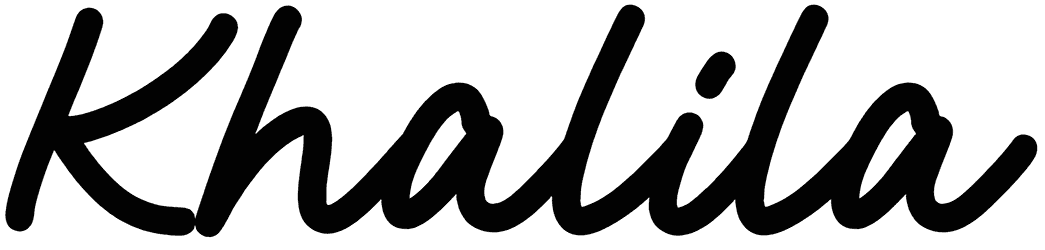
Khalila Font
Get your words customized with this modern handwritten font to add a cool and casual vibe to them. This script font, with its smooth form, would be a nice item for different projects such as a t-shirt, an Instagram post…
Get your words customized with this modern handwritten font to add a cool and casual vibe to them. This script font, with its smooth form, would be a nice item for different projects such as a t-shirt, an Instagram post of a party, or many others. Use the Khalila font to make your design level up and communicate well with your followers.